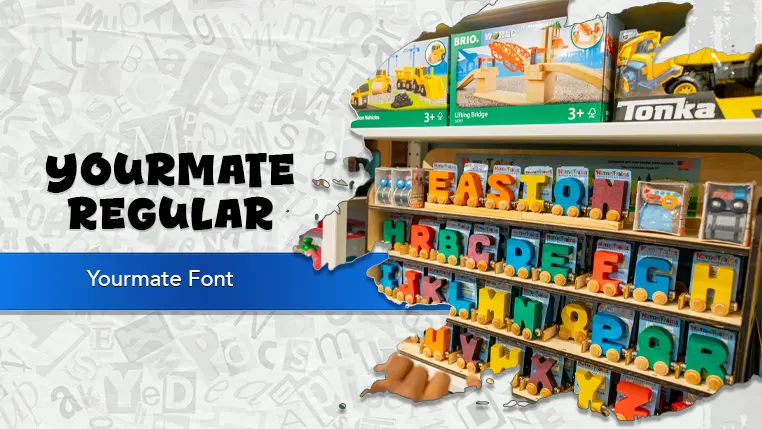
The Yourmate font family may be ideal for you if you enjoy working on an artistic design project. The lively, expressive look of this typeface, which was created by Khurasan™, makes it ideal for Children's products and branding. Its bold, hand-drawn aesthetic works well for comic book titles, speech bubbles, and graphic novel lettering, where an expressive and dynamic feel is desired. Yourmate can be used to create a unique and memorable brand identity for businesses that want to convey a sense of fun, such as a candy shop, a creative agency, or a casual food establishment. The font's eye-catching nature makes it an excellent choice for headlines, posters, and social media posts where you want to grab attention with a joyful and confident tone. and other light-hearted visual projects.
Regular are the one primary font styles of the Yourmate font family. You may build dynamic, visually appealing text layouts with the distinct flair that each style offers. With crisp, readable lines and a relaxed tone.